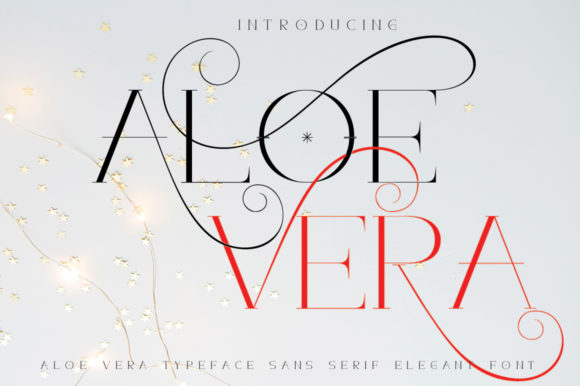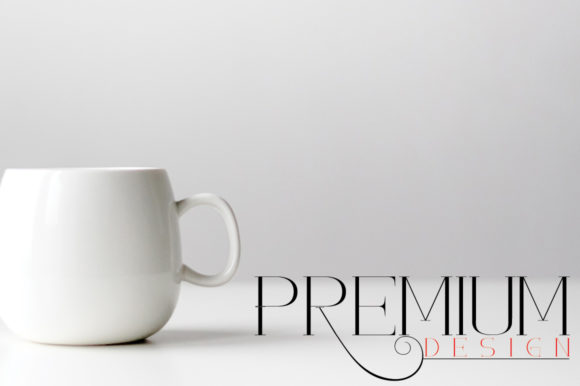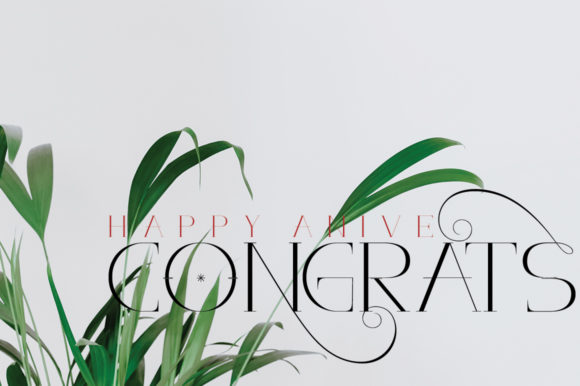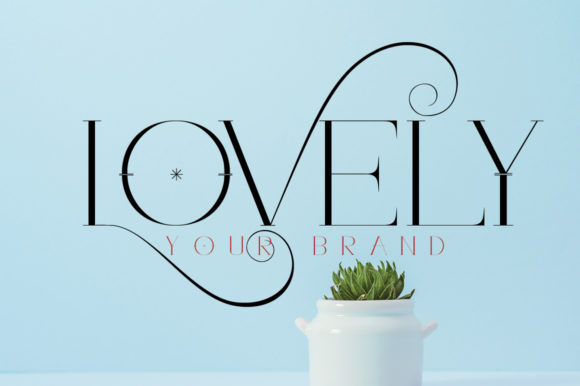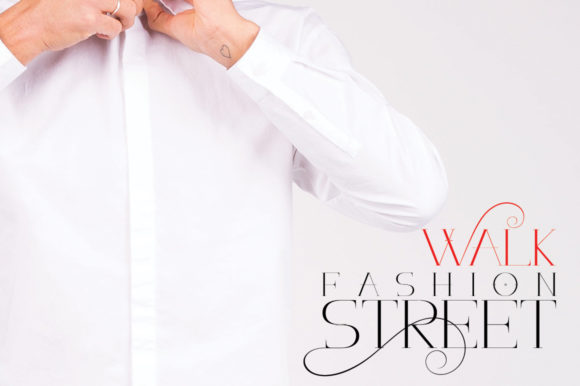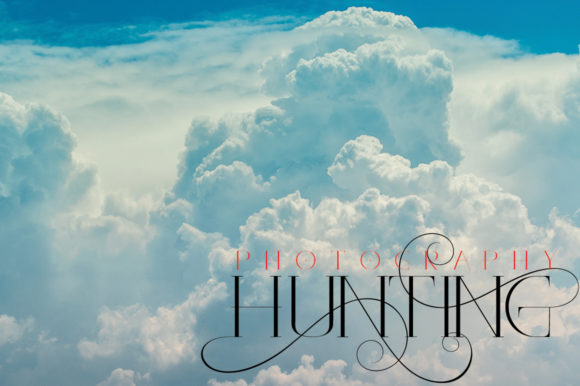
Aloe Vera Font: Elevate Your Crafting Projects with Elegance and Romance
Are you a designer or crafter looking for a font that exudes elegance, friendliness, and a touch of romance? Look no further than the Aloe Vera Font. This beautiful serif font is designed to add a classy style to any crafting project, making it perfect for those who want to create something truly special.
What is Aloe Vera Font?
Aloe Vera Font is a carefully crafted serif font that boasts an elegant and friendly appearance. Its classy style makes it an ideal choice for designers and crafters who want to add a touch of sophistication to their projects. Whether you’re working on a DIY craft, a branding project, or a marketing material, Aloe Vera Font is sure to impress.
Key Features of Aloe Vera Font
• Elegant and Friendly Design: Aloe Vera Font features a beautiful serif design that is both elegant and friendly. Its unique style makes it perfect for projects that require a touch of sophistication and approachability.
• Classy Style: This font is designed to add a classy touch to any project. Its refined appearance makes it perfect for high-end branding, marketing materials, and crafting projects.
• Romantic Touch: Aloe Vera Font is perfect for projects that require a romantic touch. Its elegant design makes it ideal for wedding invitations, Valentine’s Day cards, and other projects that require a touch of love and care.
• Versatile: This font is versatile and can be used for a wide range of projects, including DIY crafts, branding, marketing materials, and more.
How to Use Aloe Vera Font in Your Projects
• Pair it with Other Fonts: Aloe Vera Font can be paired with other fonts to create a unique and interesting look. Try pairing it with a sans-serif font for a modern and elegant look.
• Use it for Headings and Titles: Aloe Vera Font is perfect for headings and titles. Its elegant design makes it ideal for adding a touch of sophistication to your project.
Benefits of Using Aloe Vera Font
• Stand Out from the Crowd: Aloe Vera Font is a unique and elegant font that will help your project stand out from the crowd.
• Professional Look: This font is designed to give your project a professional look. Its elegant design makes it perfect for high-end branding and marketing materials.
• Easy to Read: Aloe Vera Font is easy to read, making it perfect for projects that require a lot of text.
In conclusion, Aloe Vera Font is a beautiful and elegant serif font that is perfect for designers and crafters who want to add a touch of sophistication and romance to their projects. Its classy style, elegant design, and versatility make it an ideal choice for a wide range of projects. Whether you’re working on a DIY craft, a branding project, or a marketing material, Aloe Vera Font is sure to impress.